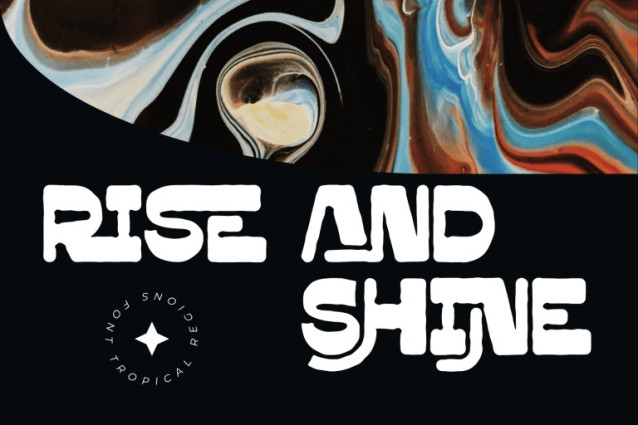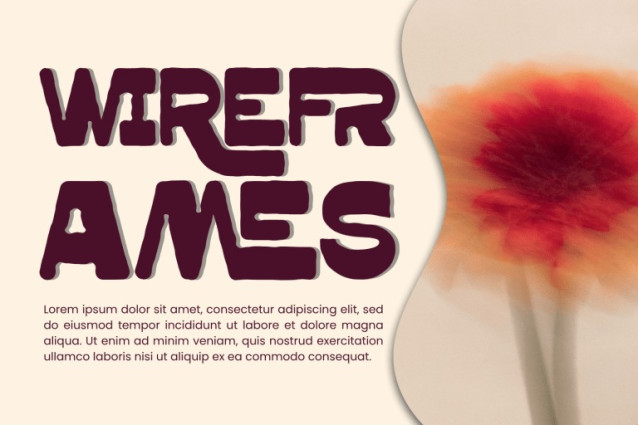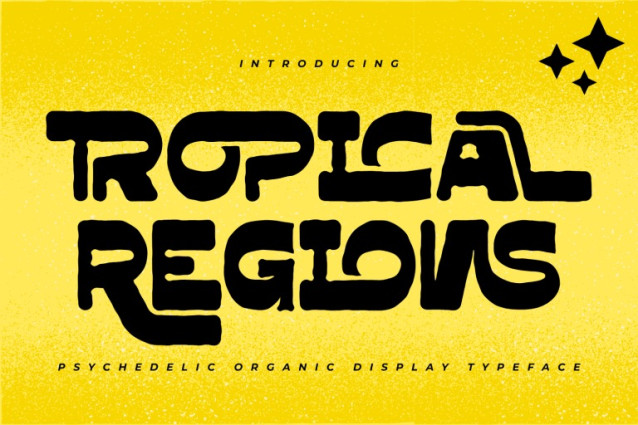
TROPICAL REGIONS – PLAYFUL FONT is a bold retro psychedelic display font inspired by the vibrant visual culture of the 1960s and 1970s. Featuring chunky letterforms, organic curves, and handcrafted imperfections, this typeface captures the free-spirited energy of vintage music posters, surf graphics, and groovy branding. Its playful shapes and expressive personality create a warm, nostalgic atmosphere while maintaining strong readability and visual impact. Every character is designed to feel lively, unique, and full of creative character.
🔤Features:
Uppercase & Lowercase Letters
Around 100 Special Ligatures & Alternates
Accented Characters for multilingual support
🔤About 100 ligatures combined with Stylistic Alternates Font:
AC AD AL AN AR AS AT AU AV BE CA CE CH CO CT DE DI EA EC ED EE EL EM EN EP ER ES ET FE FO FR GE HA HE HI HO IE IC IL IN IO IR IS IT JU KE LA LE LI LL LO LY MA ME MI NC ND NE NG NO NT NS OC OF OM ON OO OP OR OT OU OW PA PR RA RD RE RI RO RS RT SE SH SI SO SS ST TA TE TH TI TO TR TT UM UN UR VE WI WO